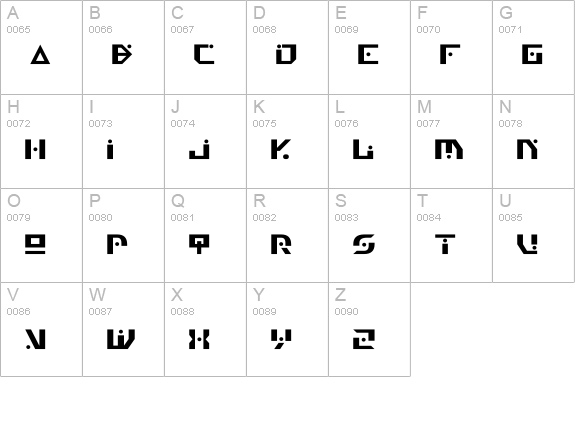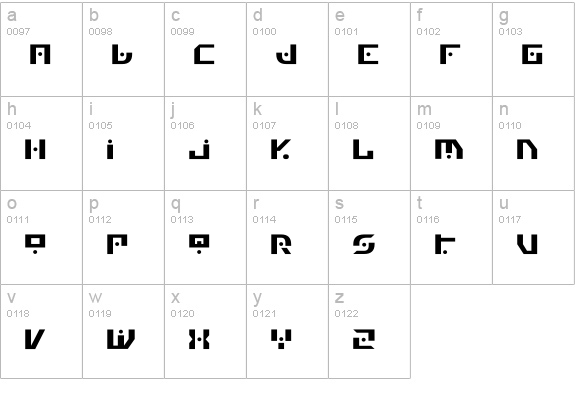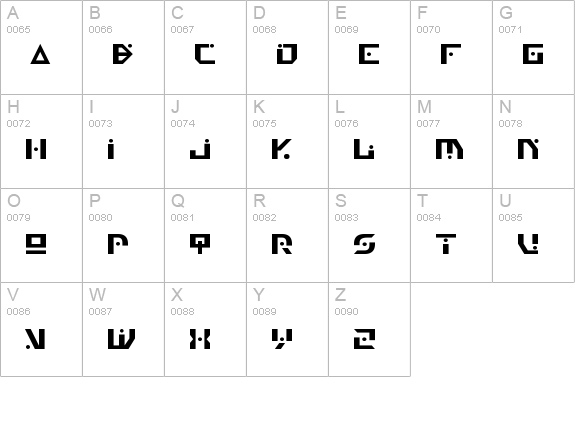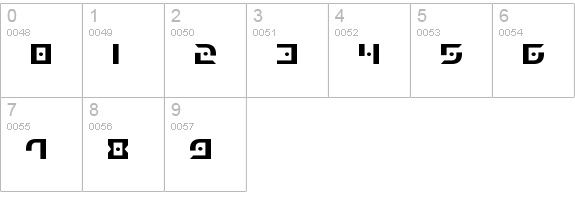
Generation Nth Font Details
Introducing Generation Nth font, a modern and stylish typeface that embodies the spirit of innovation and creativity. With its sleek lines and contemporary design, Generation Nth is perfect for a wide range of projects, from branding to web design. This versatile font is available in a variety of weights and styles, making it easy to customize and adapt to your specific needs. Whether you're looking to create a bold headline or add a touch of sophistication to your body text, Generation Nth has you covered. Best of all, Generation Nth is completely free to download at FontsMarket.com. So why wait? Give your projects a fresh new look with Generation Nth font today!